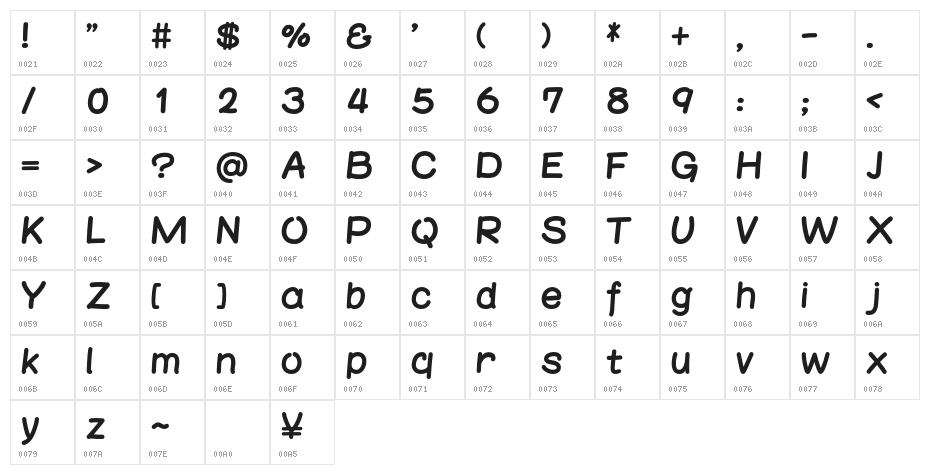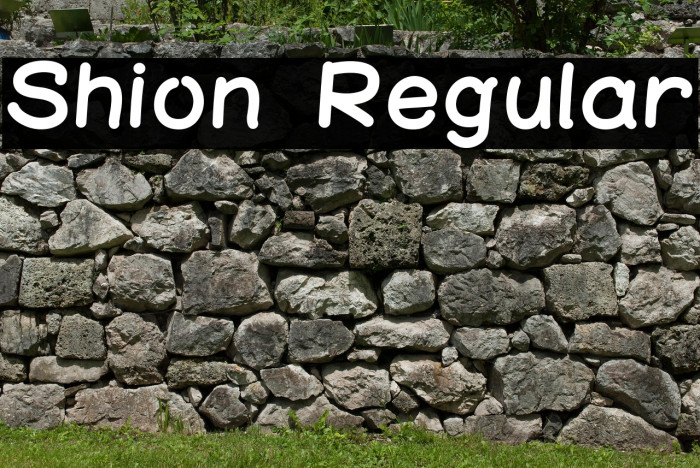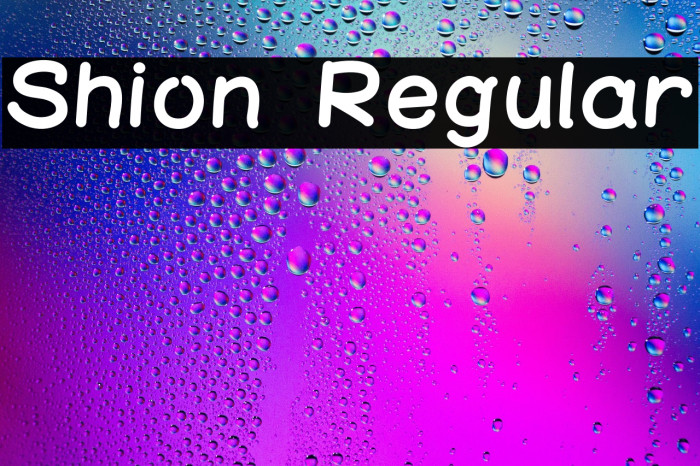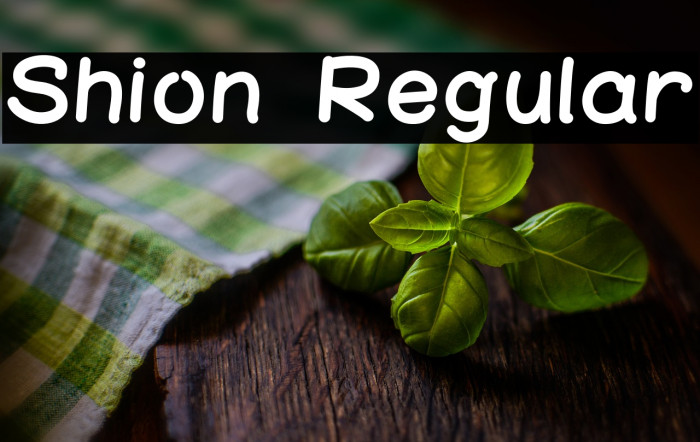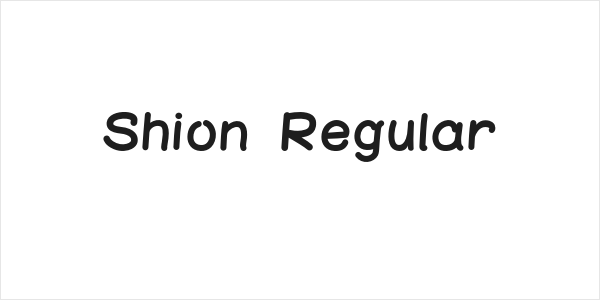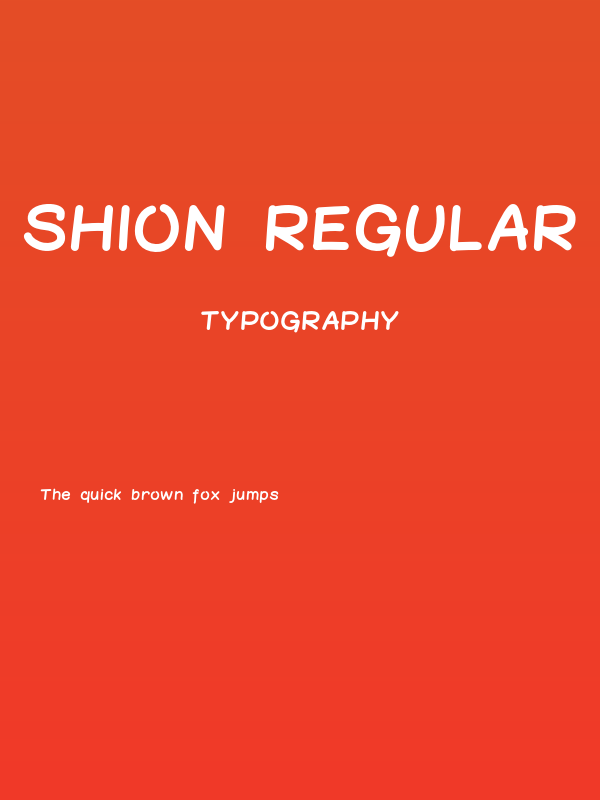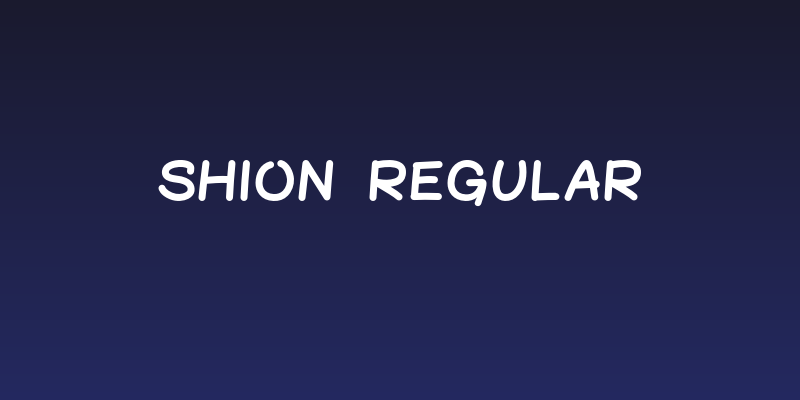
Shion Regular Font
Shion Regular Description
This font features a playful and rounded style, with each character exhibiting a smooth, flowing form. The letters have a consistent stroke width, giving them a uniform appearance. The rounded edges and slightly tilted orientation add a casual and friendly feel. The numerals and special characters maintain the same playful aesthetic, making the font versatile for various uses. The overall design is approachable and modern, suitable for projects that aim to convey warmth and friendliness.
| Overall Style | Casual |
| Use Case | Headlines, Logos, Informal Text |
| Proposed Projects | Ideal for children's books, casual branding, playful posters, and informal invitations. |